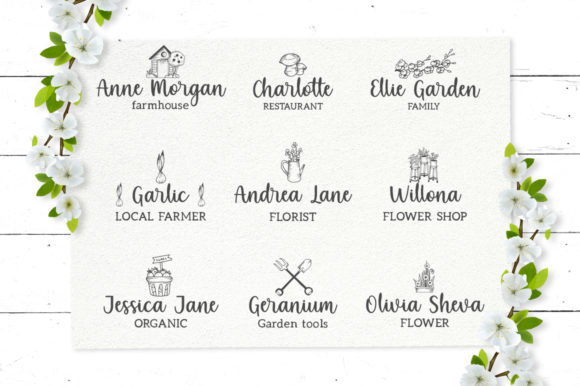
Michella Garden Font: Free Download Now
Michella Garden Font – Free Download
Introduction to Michella Garden Font
Michella Garden is a magical script font carefully created with a touch of elegance.
👤 Author Nirmala Creative
This is a beautiful combination tails and authentic calligraphy It features an incredibly modern style, while still keeping a friendly feel.
Key Features of Michella Garden Font
Why Choose Michella Garden Font?